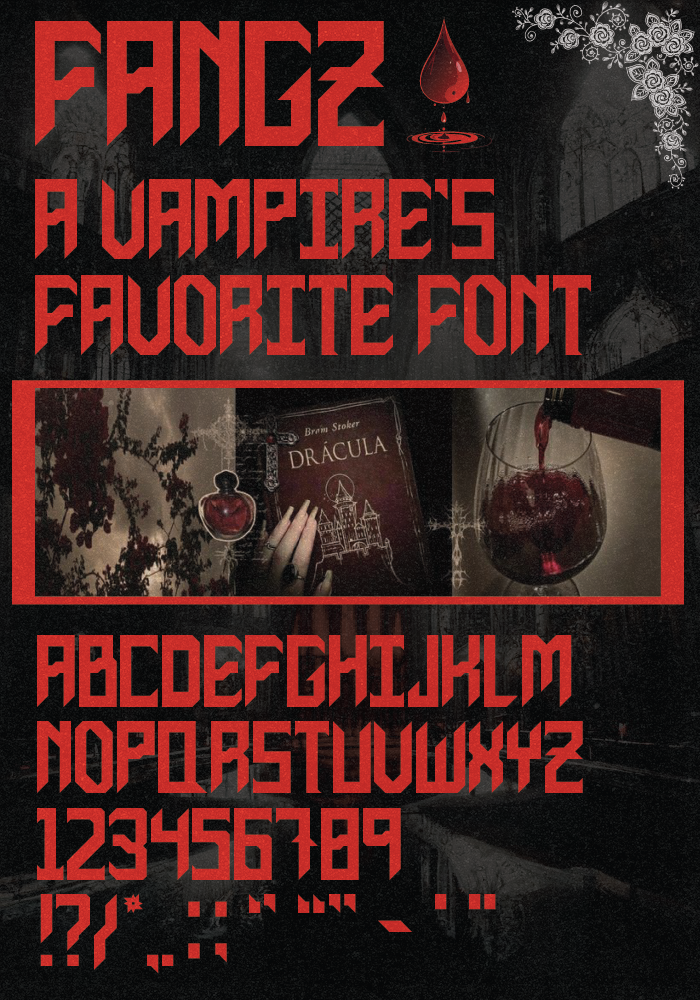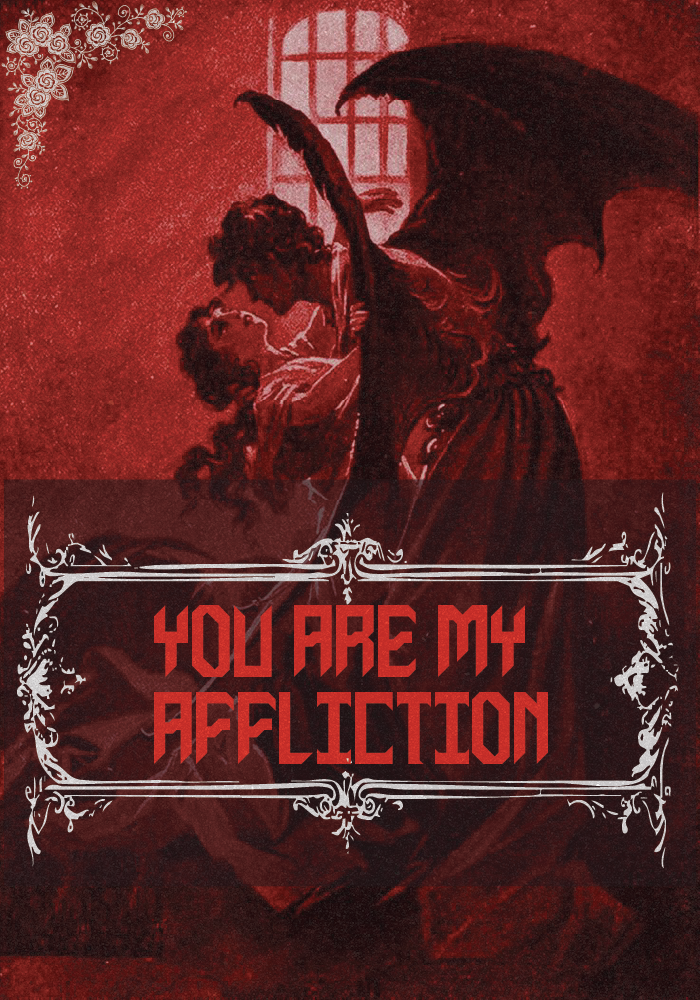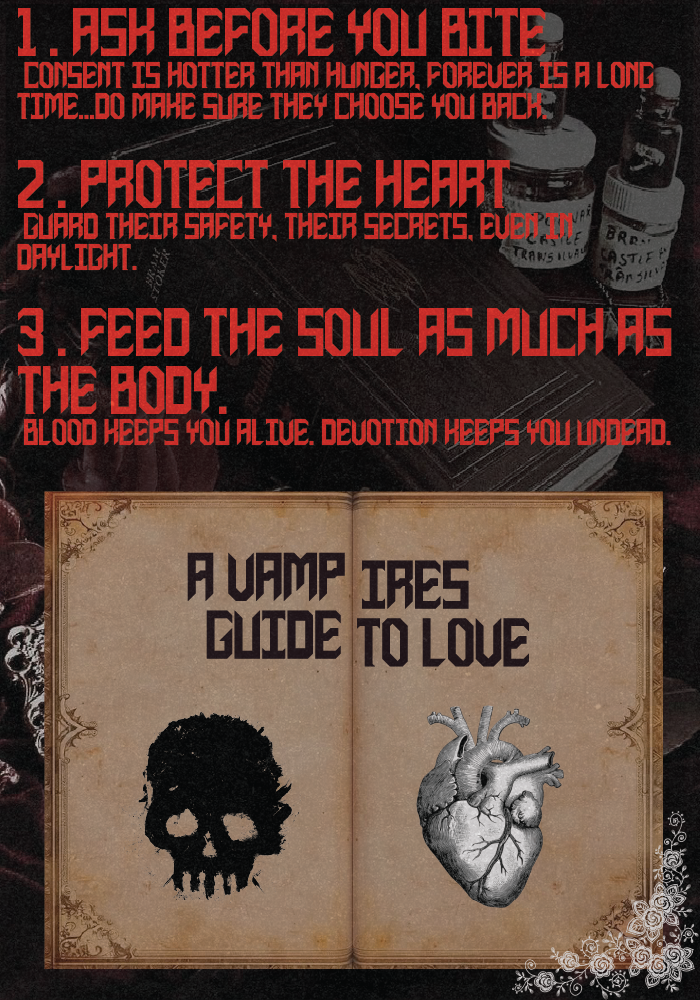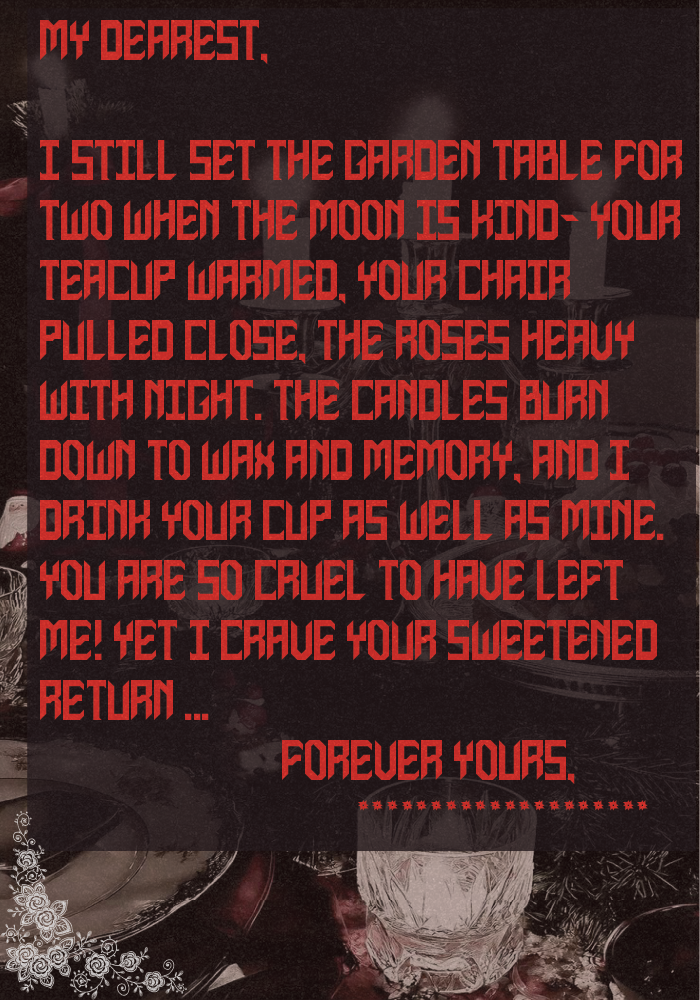
• Fangz is a sharp, blackletter influenced gothic typeface. Using aggressive triangular edges and ends, it's meant to be a sort of vampiric / brutalist font. If you're looking for something blocky yet sharp, simple yet fun, this font is for you!